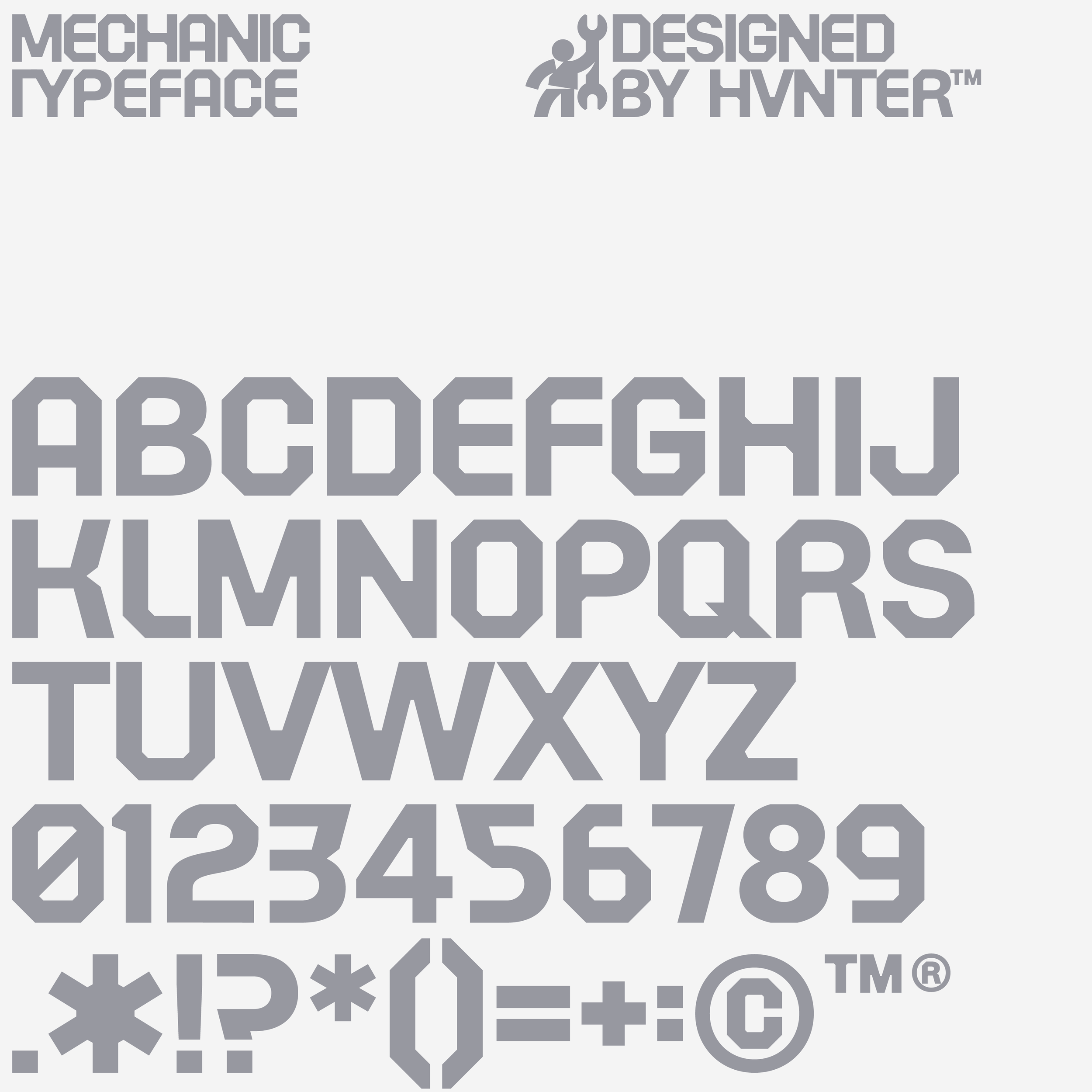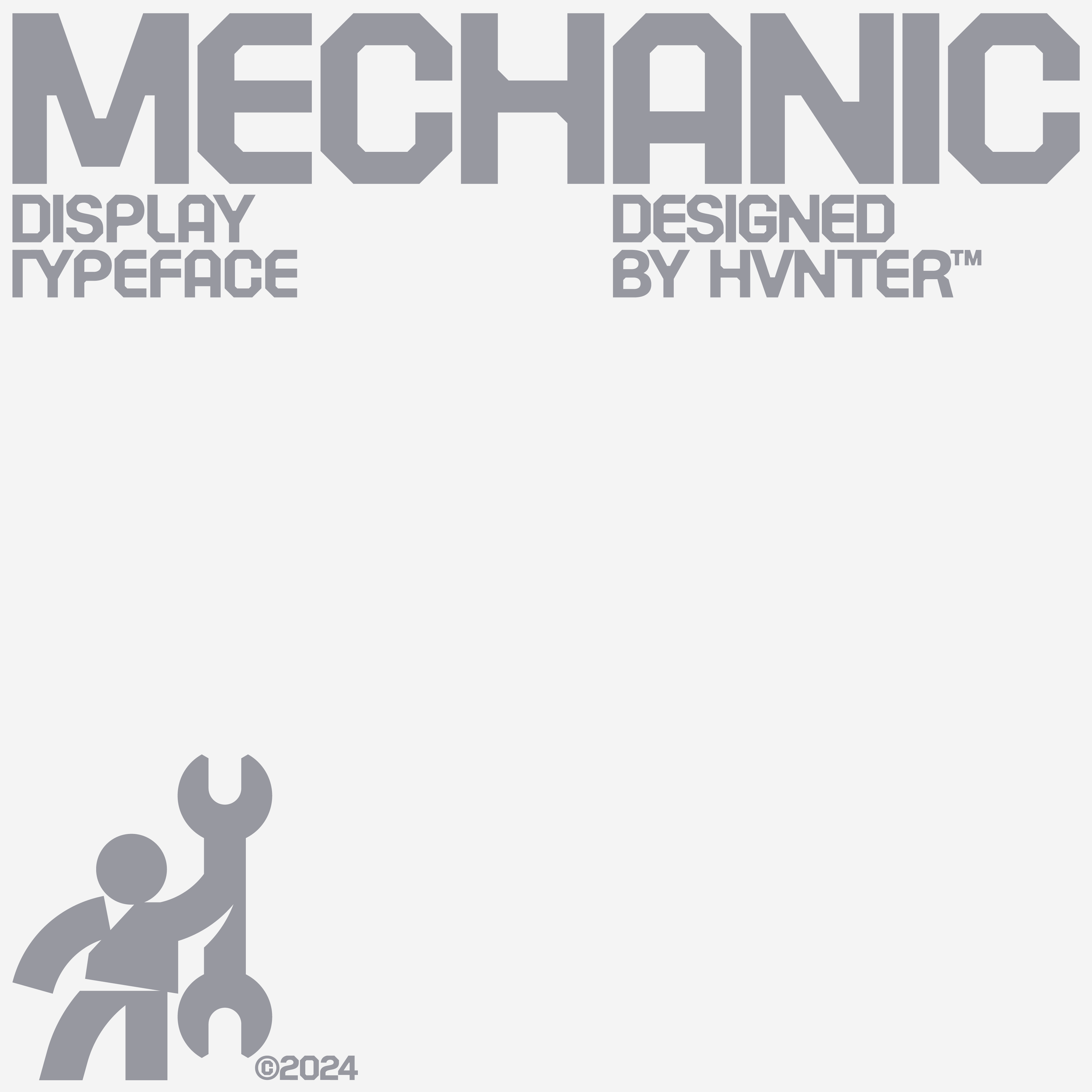
Mechanic Typeface
Typeface with a subtle industrial theme, designed by hvnter 2024.
Includes A-Z, 0-9 + Symbols.
Typeface with a subtle industrial theme, designed by hvnter 2024.
Includes A-Z, 0-9 + Symbols.